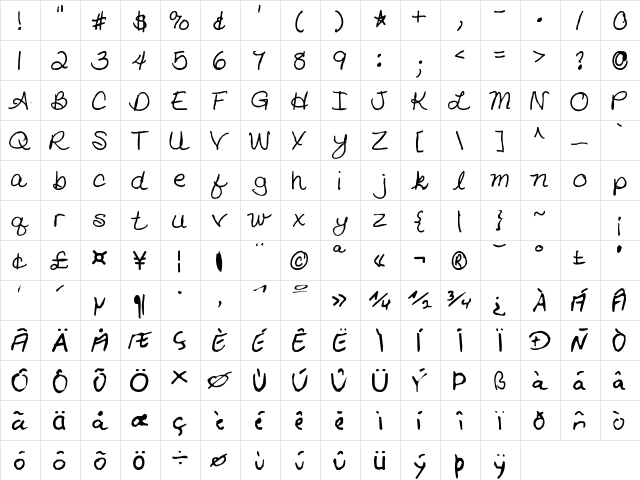
QEDawnKing Regular
Design Context for QEDawnKing Typeface
QEDawnKing is a composed and adaptable typeface that performs quietly and consistently across a wide range of design contexts.